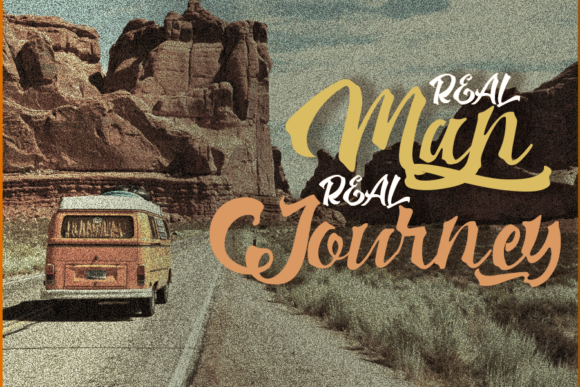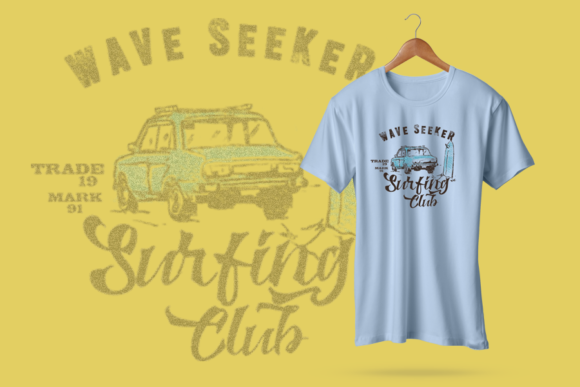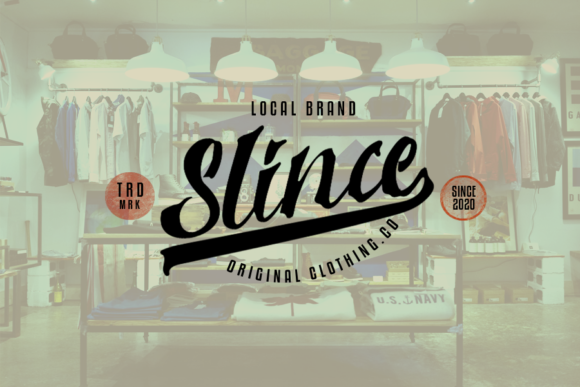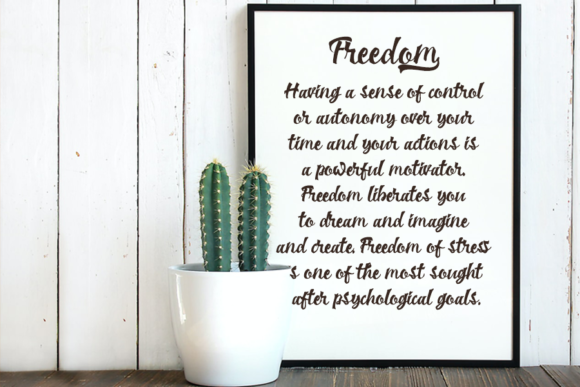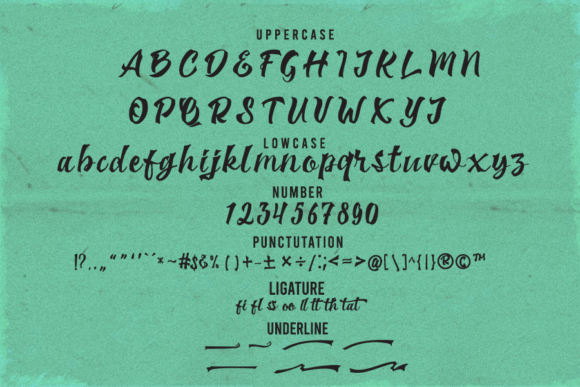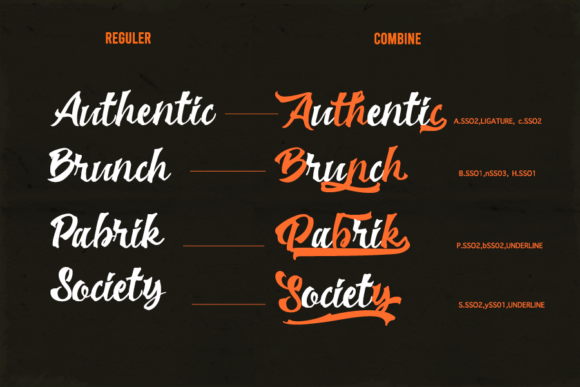
Introduction to Monkerti Font
As a designer, have you ever found yourself rummaging through old family albums or vintage stores, searching for that perfect inspiration to spark a new project? For me, it’s always the nostalgic feel of bygone eras that sets the creative juices flowing. And that’s exactly what the Monkerti Font offers – a delightful blend of playfulness and vintage charm that’s sure to transport your designs to a bygone era.
Whether you’re working on a high-quality design project or simply looking for a unique design resource to elevate your creative work, the Monkerti Font is an excellent choice. Its free download and transparent background make it incredibly versatile, allowing you to use it across a wide range of design applications, from branding and marketing materials to editorial and digital content.
Key Features of Monkerti Font
- High-quality design resource ideal for creative projects, with a unique and elegant style.
- Supports transparent background, allowing for seamless integration into various design elements.
- Monkerti Font is available in 5 different font styles, each with its own distinct characteristics and uses.
- Features a high resolution of 300 DPI, making it suitable for use in both digital and print media.
- Perfect for designers looking for a high-quality, creative font to elevate their design projects.
Honest Review: Monkerti Font
As a designer, I’m always on the lookout for high-quality fonts that can elevate my creative projects. Recently, I had the chance to explore the Monkerti Font, and I’m excited to share my honest review.
- ✨ The font’s unique design is perfect for creating a distinctive look in my designs.
- ✨ The transparent background makes it easy to combine with other design elements.
However, I do have a few limitations to mention:
- ⚠️ The font might be a bit too bold for some designs, so it’s essential to use it sparingly.
- ⚠️ Some characters may not be as detailed as I would like, which could affect the overall quality of my design.
Overall, I’m impressed with the Monkerti Font. It’s a great addition to my design resource library, and I’ve already used it in several projects. While it may have some limitations, its unique design and free availability make it a valuable tool for any designer working on a creative project.
Monkerti Font is ideal for:
1. Creative projects, such as logos, posters, and infographics.
2. Presentations, reports, and documents that require a high-quality font.
3. Digital products, such as e-books, templates, and graphics.